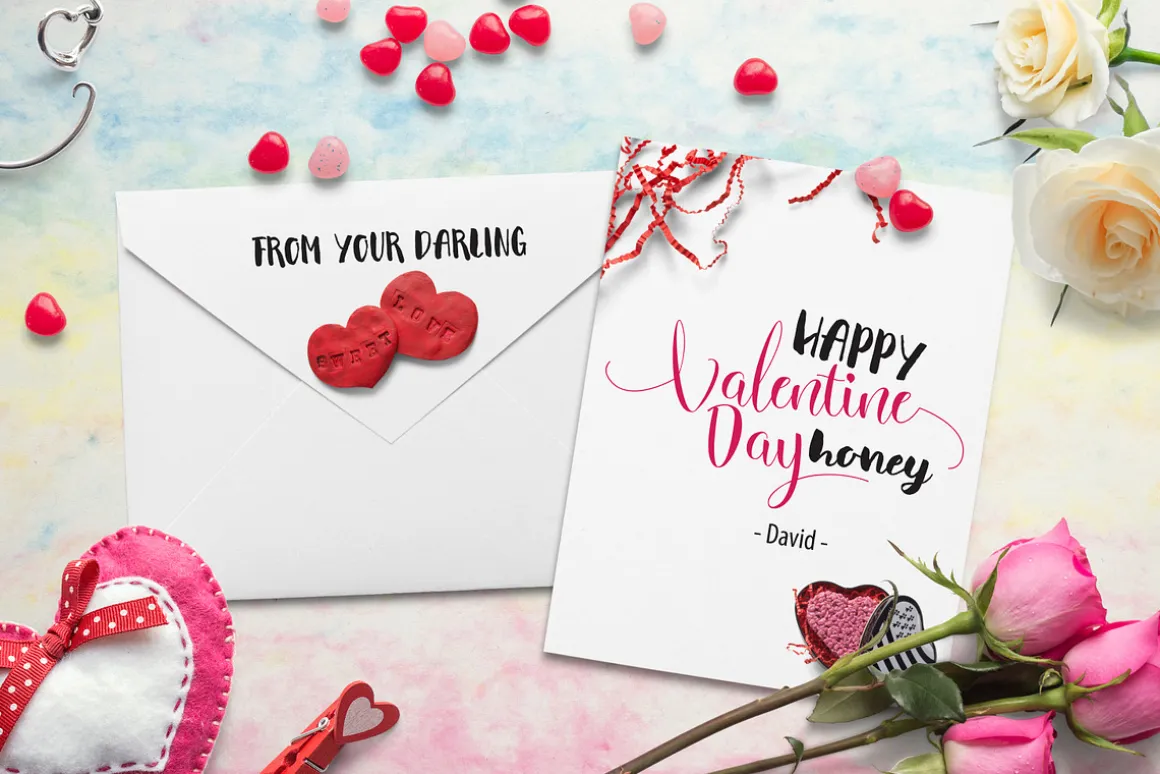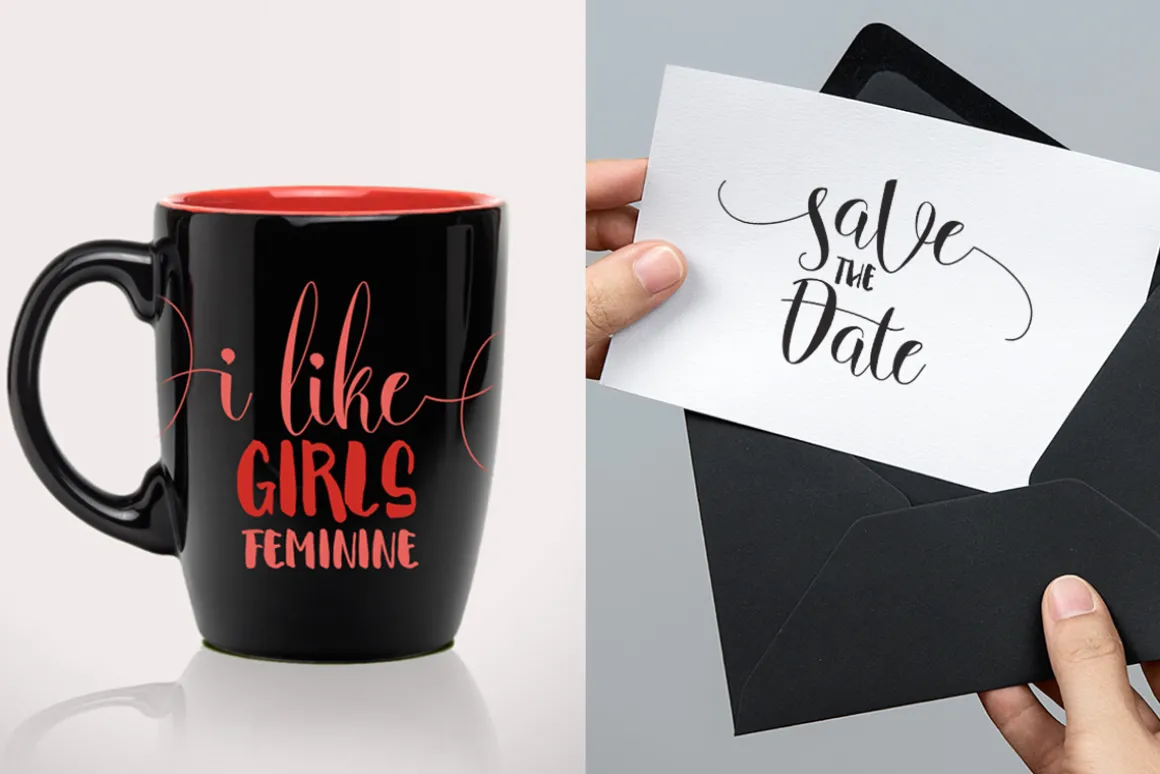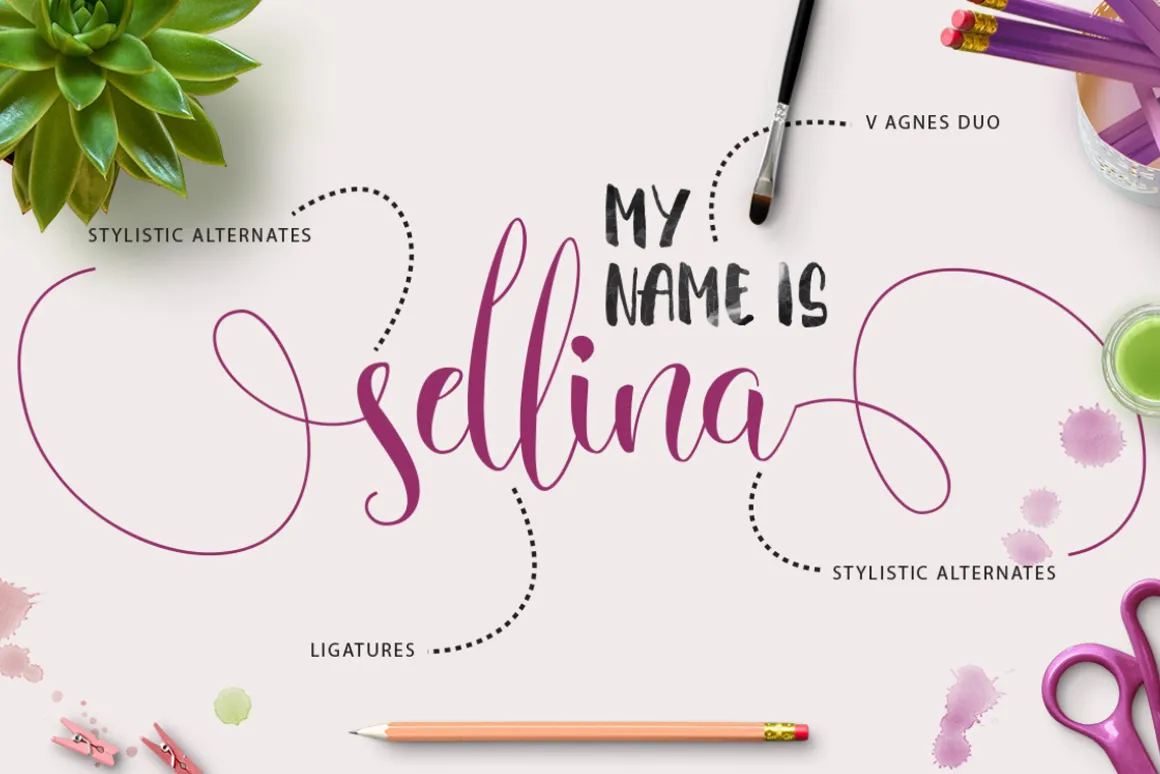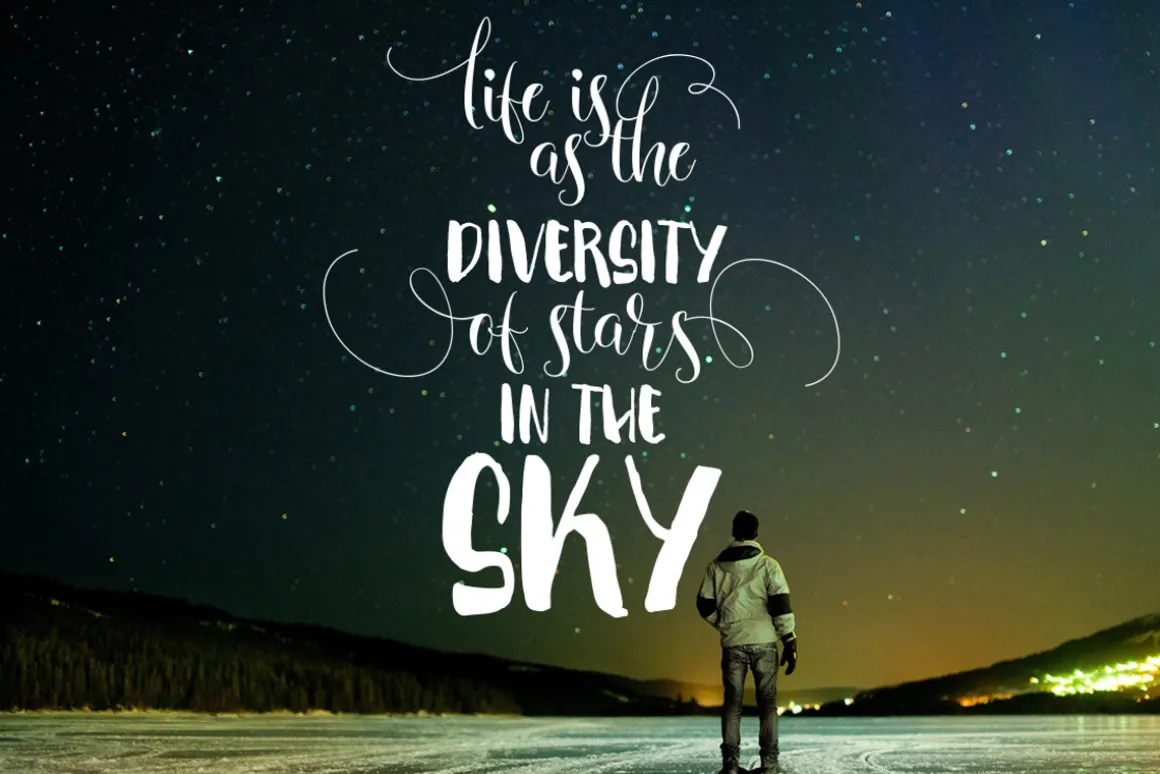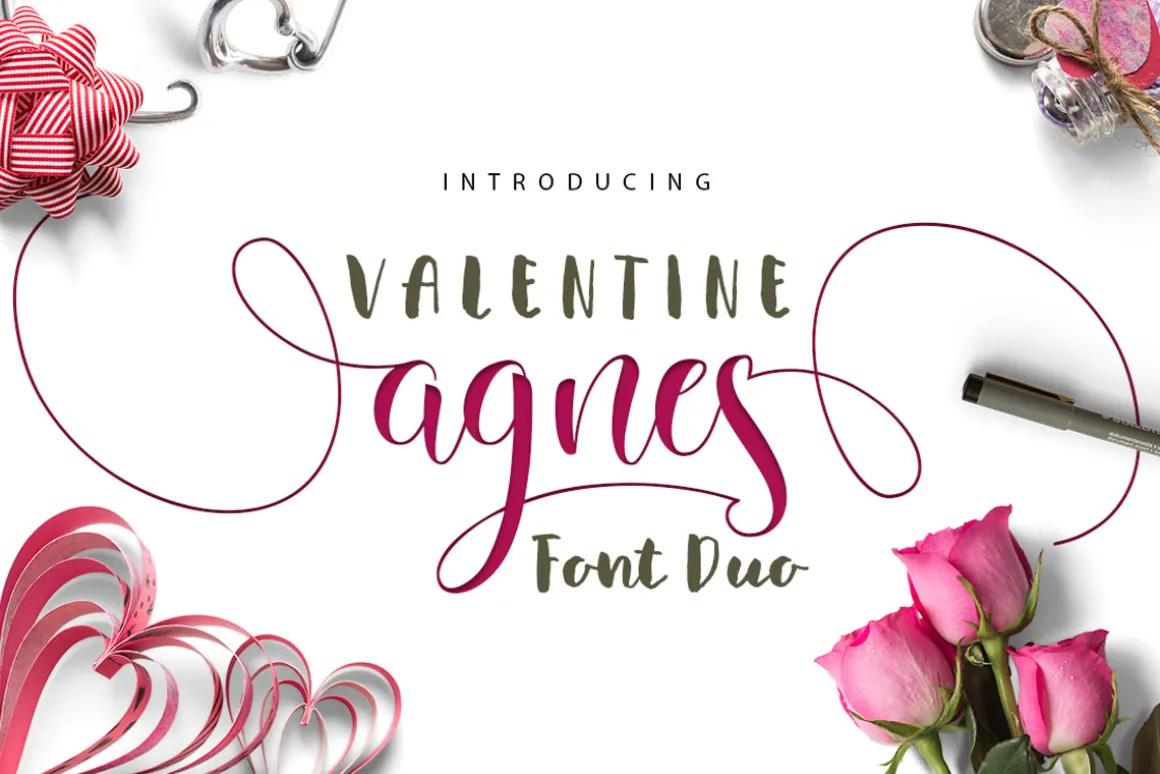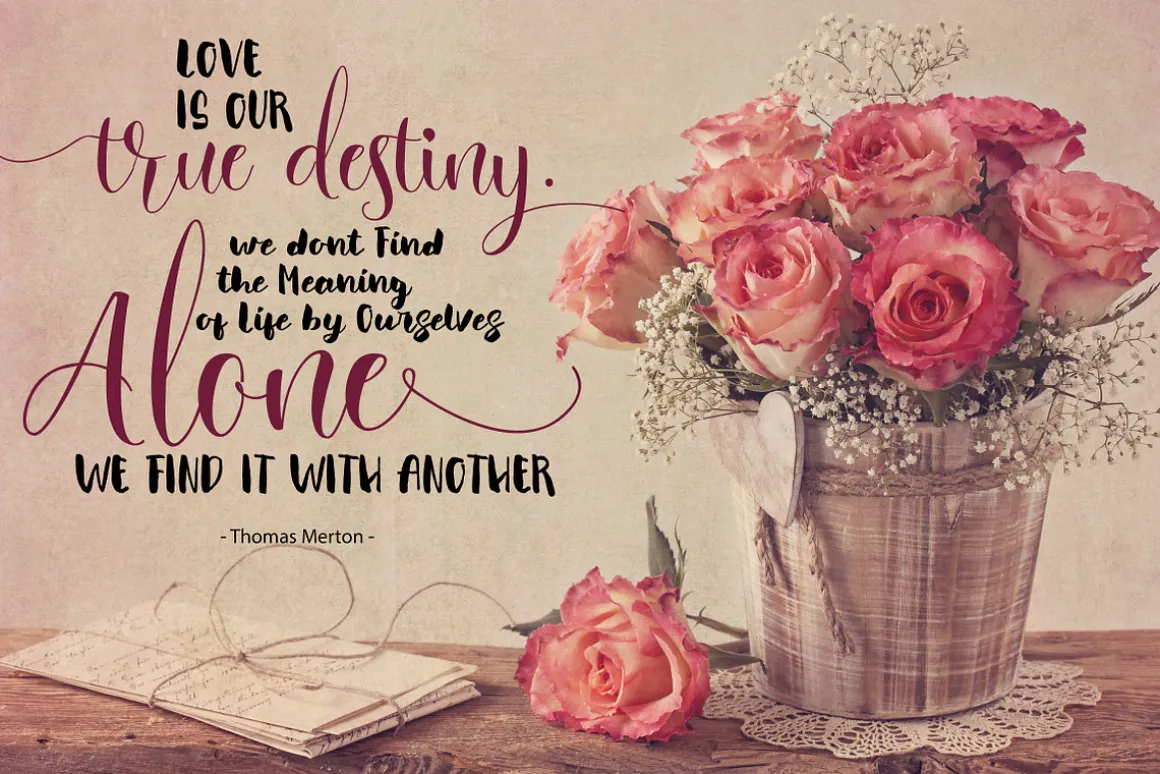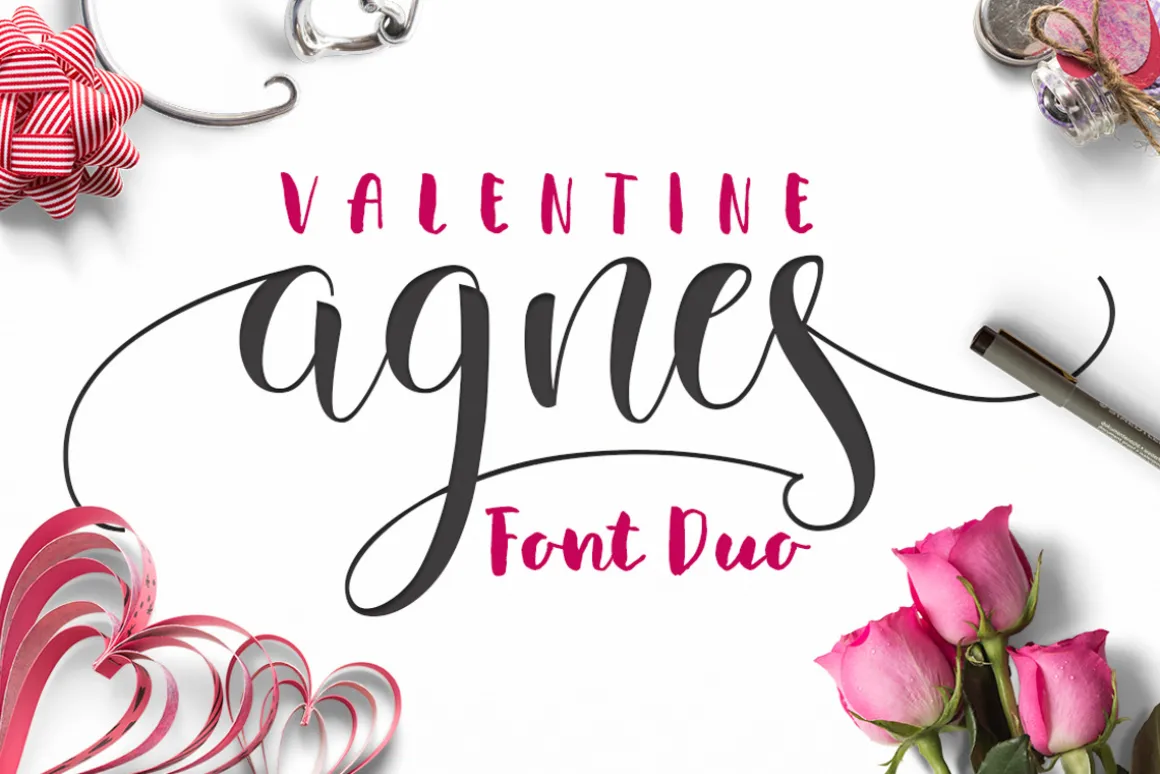
Valentine Agnes Font Duo is a Beautiful Font Duo typeface, It suitable for wedding invitation, greeting cards, T-Shirt, Logo or any design that you create. Valentine Agnes comes with a complete set of standard characters, Punctuation, international glyphs, (but for fonts v agnes duo only uppercase, lowercase and numeral ) The alternative characters were divided into several OpenType features such as Ligature, Alternates and has given PUA unicode (specially coded fonts)
Features font Valentine Agnes
- UPPERCASE
- lowercase
- numeral
- punctuation
- international glyphs
- Ligatures
- Stylistic Alternates
- Support PUA unicode
Features font v agnes duo
- Uppercase
- Lowercase
- Numeral